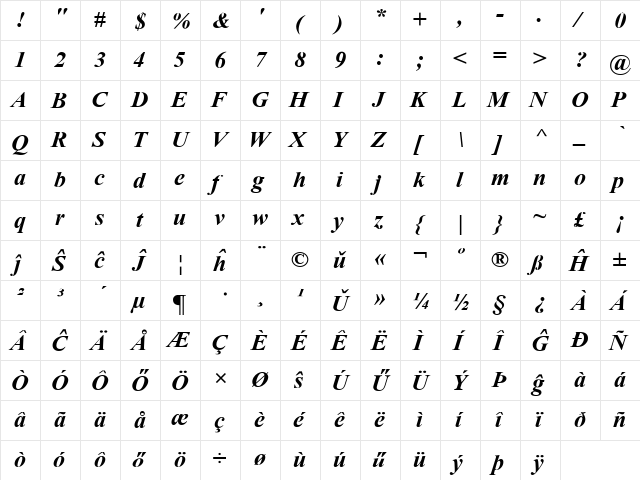
Tempo Esperanto Dika Kursiva
Design Context for Tempo Esperanto Typeface
Tempo Esperanto takes a measured approach to typography — its balanced proportions and neutral character make it a reliable workhorse for both digital and print work. The dynamic lean of this cut emphasises speed and emphasis in any layout.
Pro Tip: Try Tempo Esperanto for annotation and caption copy alongside an upright companion — the contrast in angle creates a dynamic but ordered typographic system.